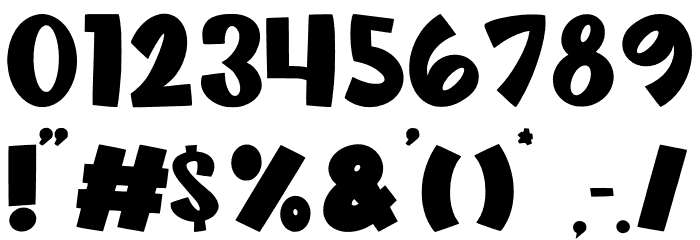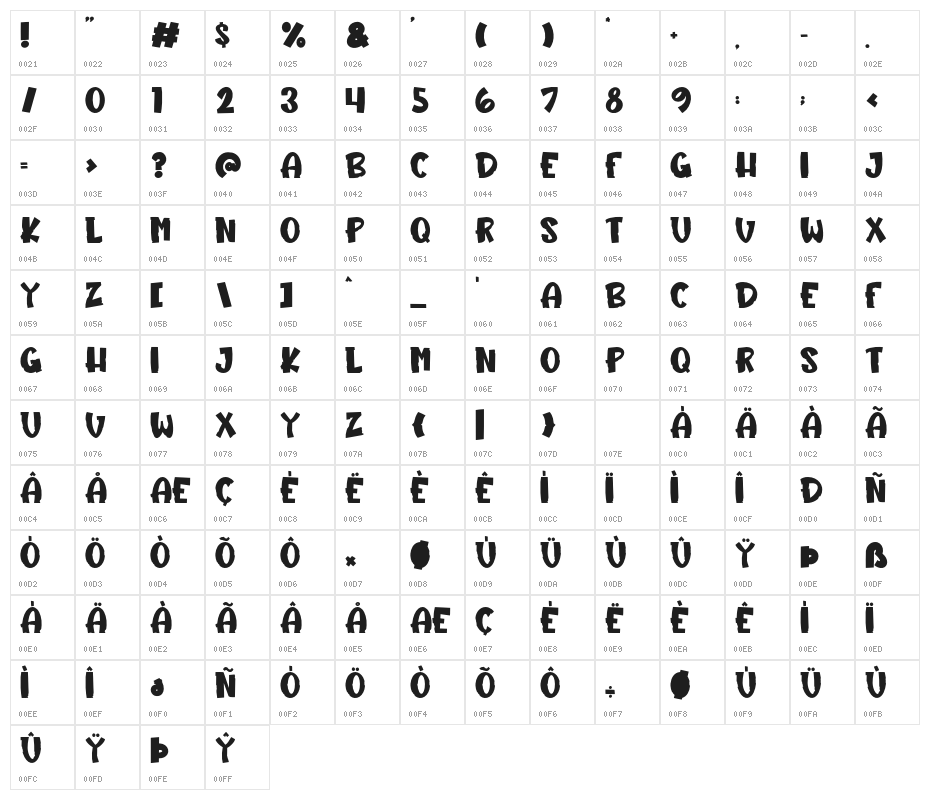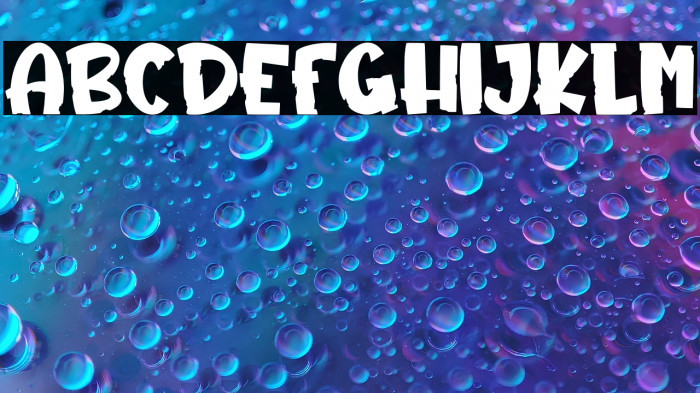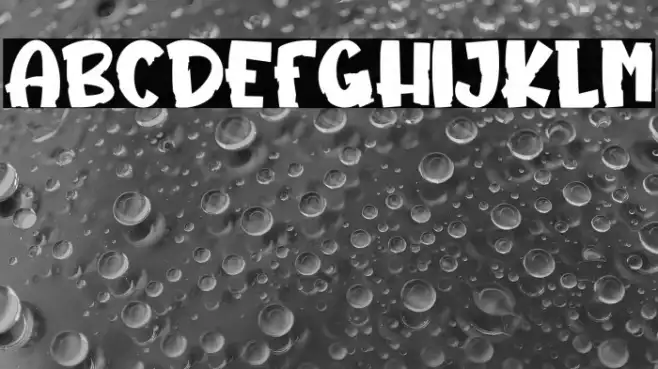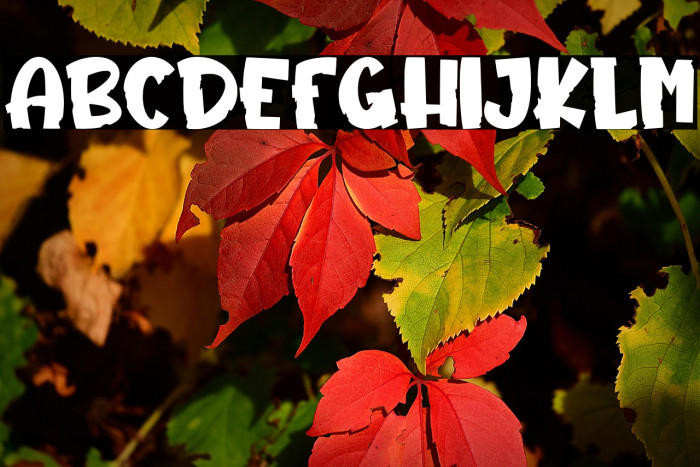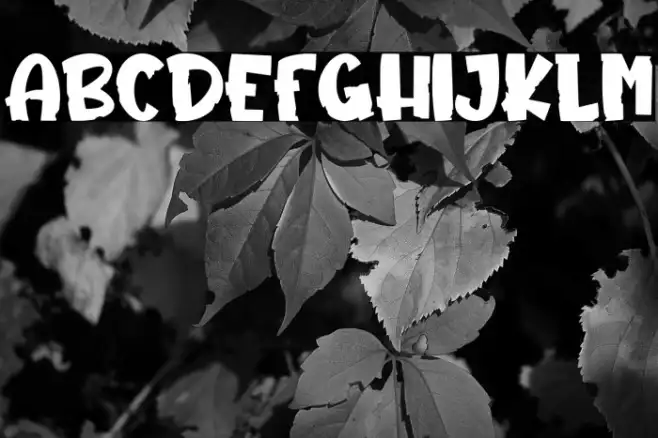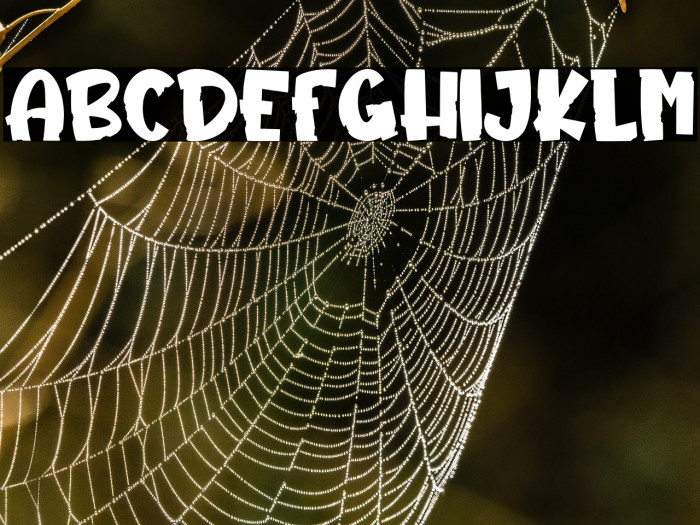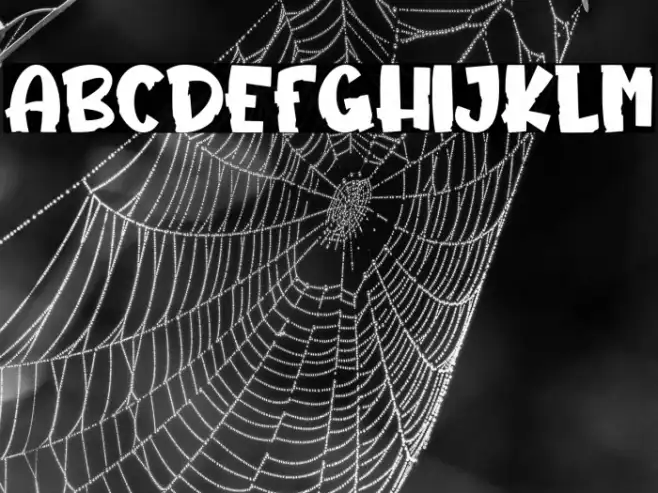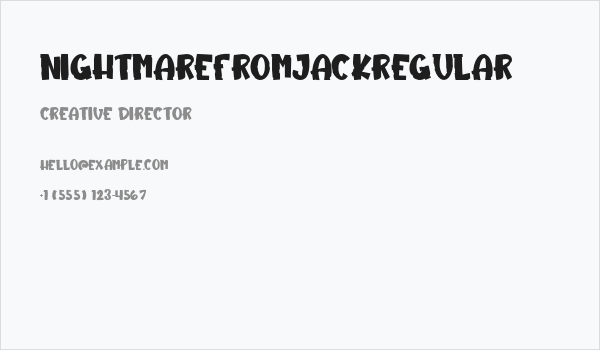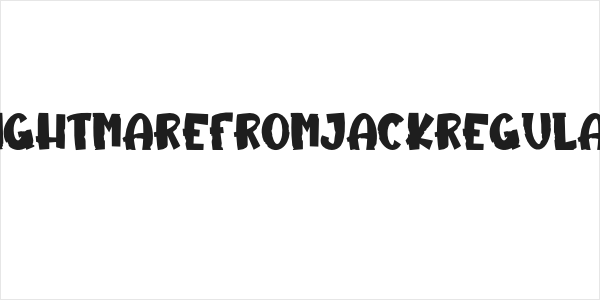
NightmareFromJackRegular Font
NightmareFromJackRegular Description
This font features a bold and playful design with a slightly spooky and whimsical touch. The characters are thick and have a hand-drawn appearance, giving them a lively and energetic feel. The strokes are uneven, adding to the quirky and informal style. The font maintains a consistent weight throughout, with a slightly condensed width that enhances its boldness. The character spacing is normal, allowing for clear readability despite the playful design. The font's unique style makes it suitable for creative and fun projects, especially those with a Halloween or fantasy theme.
| Proposed Projects | Ideal for Halloween-themed designs, children's book covers, party invitations, and playful branding. |